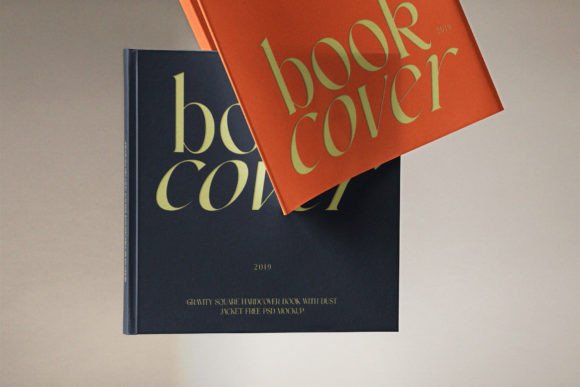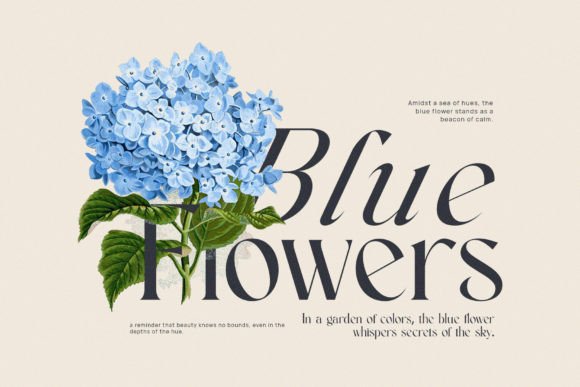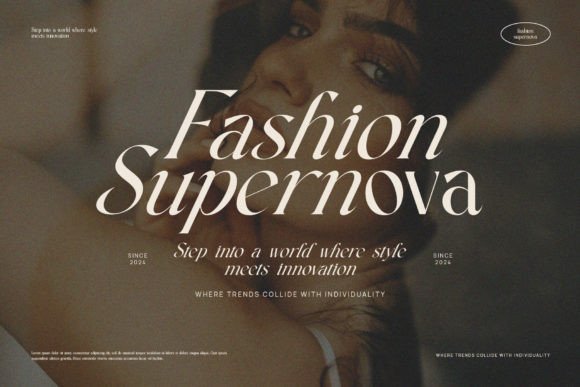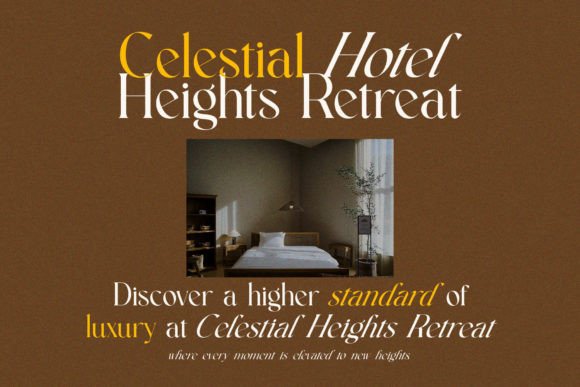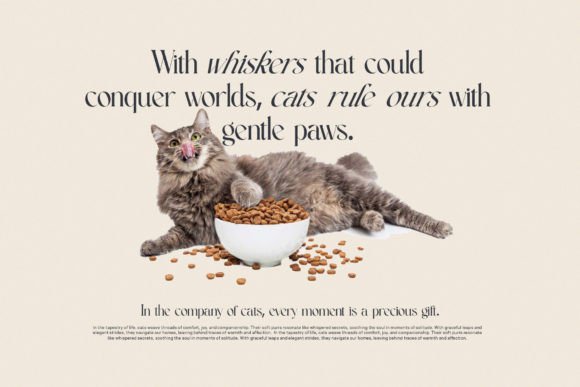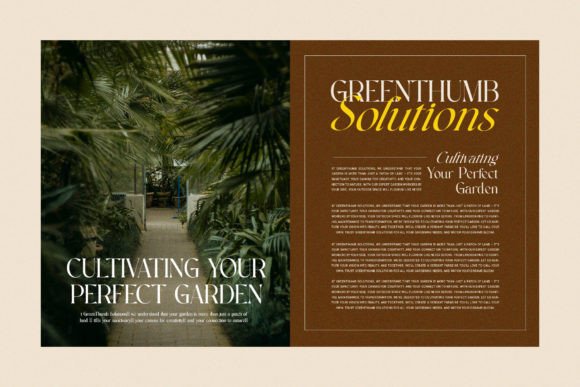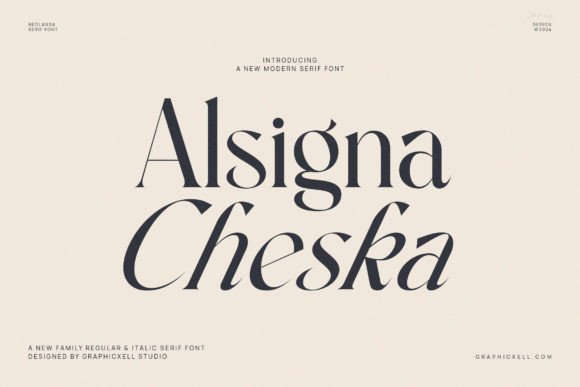
Discover the Elegance of Alsgina Cheska Font: A Modern Serif Marvel
In the realm of typography, fonts are not just mere letters and symbols; they are expressions of style, history, and creativity. Among the myriad of fonts available, Alsgina Cheska stands out as a beacon of modern elegance and classic inspiration. This article aims to delve into the essence of Alsgina Cheska, exploring its historical roots, unique characteristics, and the vast possibilities it offers to designers and crafters.
A Nod to History and Ancestry
The Alsgina Cheska font draws its inspiration from the rich history and ancestry of Italian typefaces. It embodies a blend of traditional flair and modern sophistication, making it a versatile tool for various design projects. The font’s design is a testament to the evolution of typefaces, combining the classic with the contemporary to create something uniquely appealing.
Unveiling the Characteristics of Alsgina Cheska
Alsgina Cheska is an elegant serif font that brings a modern twist to traditional serif designs. One of its defining features is the significant contrast between thick and thin strokes, which adds depth and dynamism to any text. The font also boasts a very thin hair-line serif and vertical pressure, characteristics that are reminiscent of modern serif fonts but with a distinct touch of elegance and refinement.
The Unique Reversed Diagonal Axis Style
A closer look at Alsgina Cheska reveals a particular uniqueness – a reversed diagonal axis style. This distinctive feature sets it apart from other serif fonts, imbuing it with a sense of enthusiasm and style. The reversed diagonal axis not only adds to the font’s aesthetic appeal but also enhances its readability and expressiveness, making it suitable for a wide range of applications.
Applications of Alsgina Cheska
Given its elegant and modern characteristics, Alsgina Cheska is incredibly versatile. It finds its use in various mediums, including logos, billboard advertising, fashion labels, posters, and modern editorials. The font’s ability to convey bravery through its detail and boldness makes it an excellent choice for projects that aim to make a statement.
Enhancing Engagement with Alsgina Cheska
For designers and crafters looking to engage their audience effectively, Alsgina Cheska offers a compelling solution. Its modern style and classic roots combine to create a font that is not only visually appealing but also highly engaging. By incorporating Alsgina Cheska into their designs, creatives can add a layer of sophistication and elegance that resonates with viewers.
Tips for Using Alsgina Cheska
To make the most of Alsgina Cheska, consider the following tips:
- Pair it with Simplicity: Let the font be the focal point by pairing it with simple backgrounds or design elements.
- Experiment with Sizes: The font’s versatility shines when used in various sizes, from large headings to smaller body text.
- Play with Colors: While the font’s elegance is undeniable in black and white, experimenting with colors can add an extra dimension to your design.
Alsgina Cheska is more than just a font; it’s a statement of elegance, modernity, and history. Its unique blend of classic inspiration and contemporary design makes it a valuable asset for designers and crafters seeking to elevate their projects. Whether you’re working on a logo, a billboard, or a fashion label, Alsgina Cheska offers the perfect combination of style and expressiveness to engage your audience and make your design stand out.
Embrace the elegance of Alsgina Cheska and discover the difference it can make in your creative endeavors.